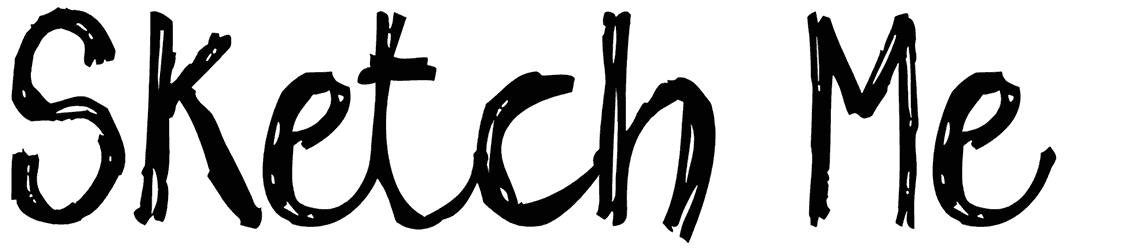
Sketch Me Font
Are you trying to make a cute and natural look for your design? Well, Sketch Me is over here to surprise you. This sketch font has an amusing and energetic vibe and hand-drawn style. No punctuation to offer but still is a perfect choice for short or long texts like posters, children’s designs, mugs, backgrounds, and much more. Have fun!